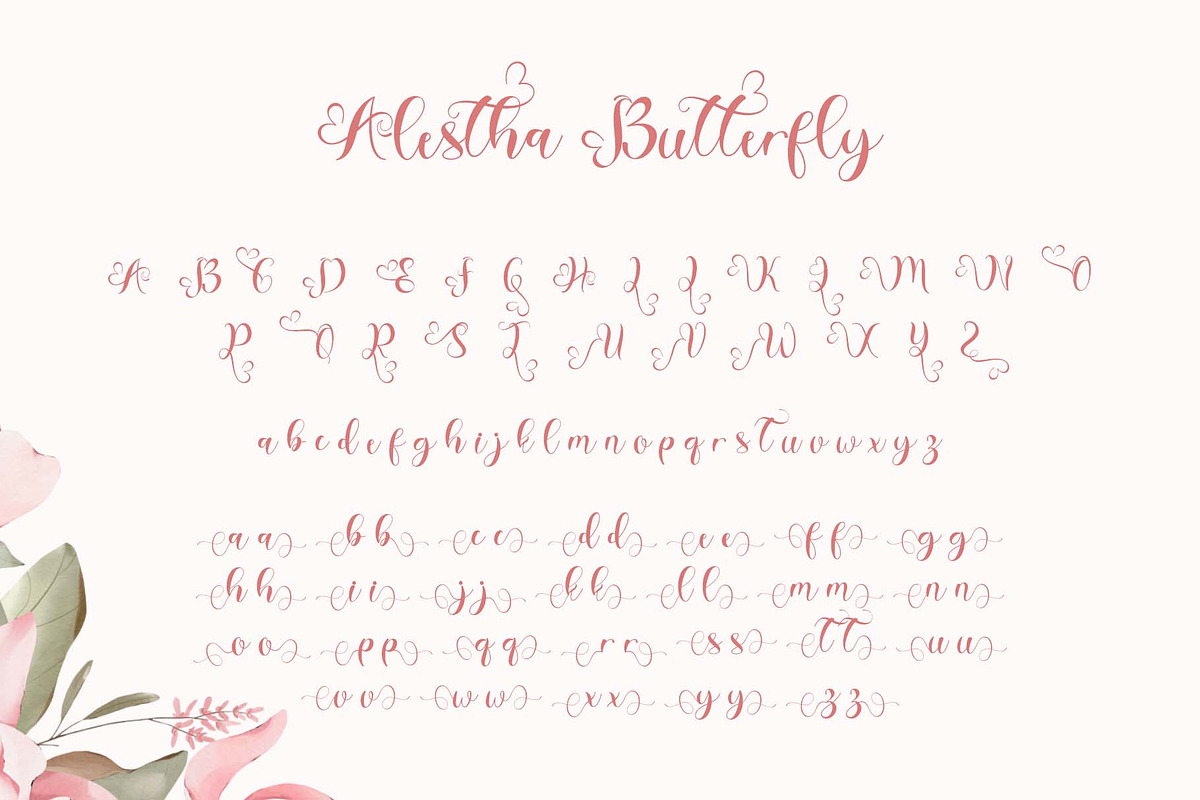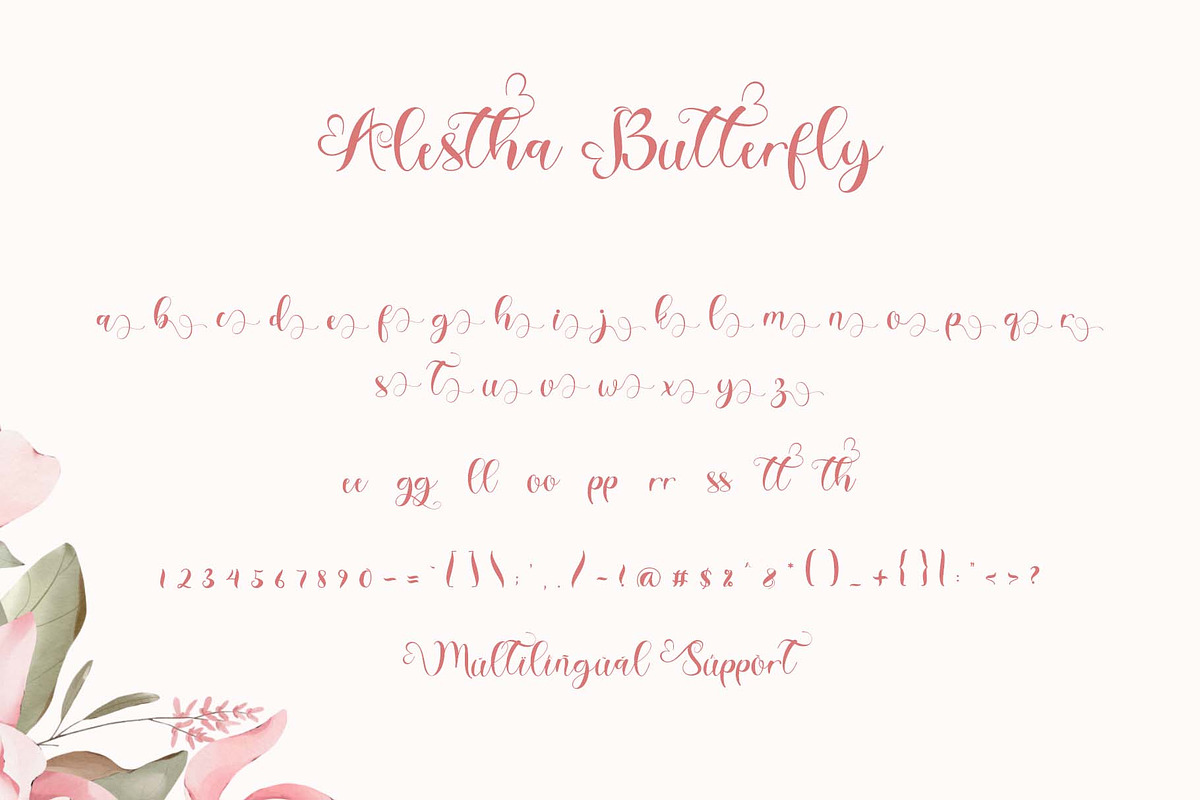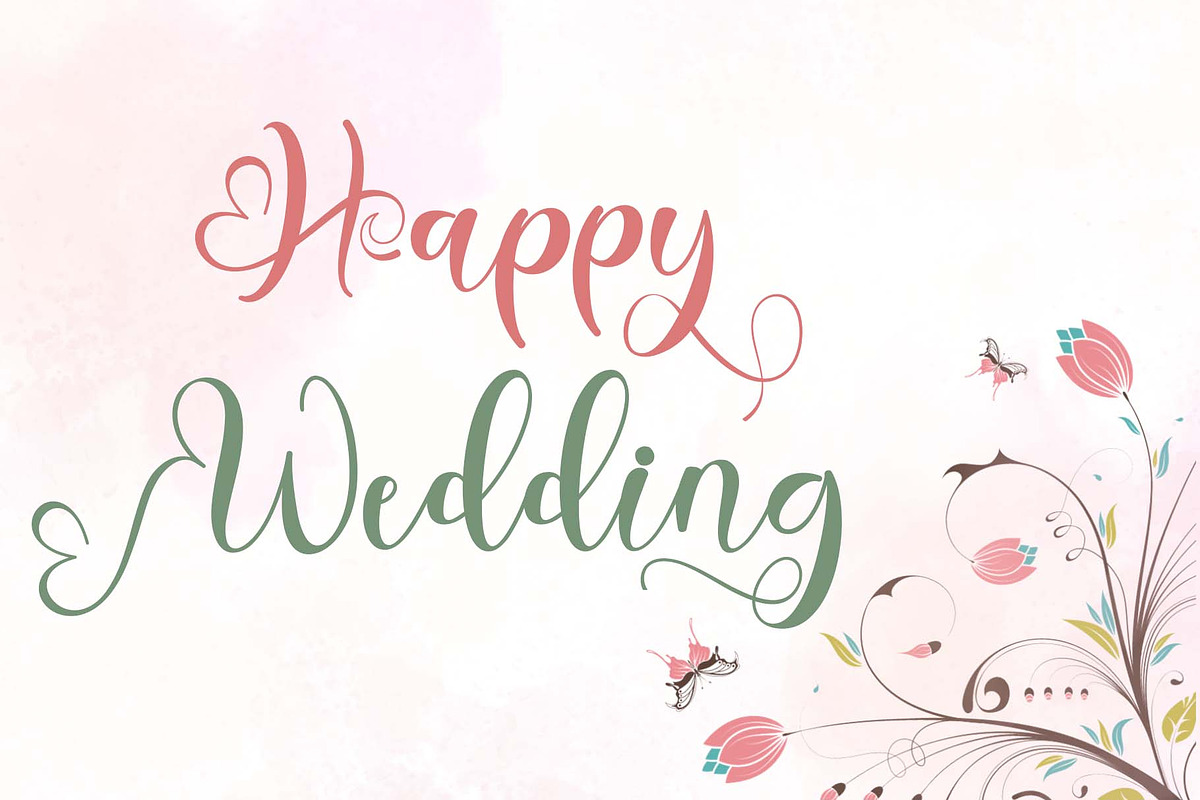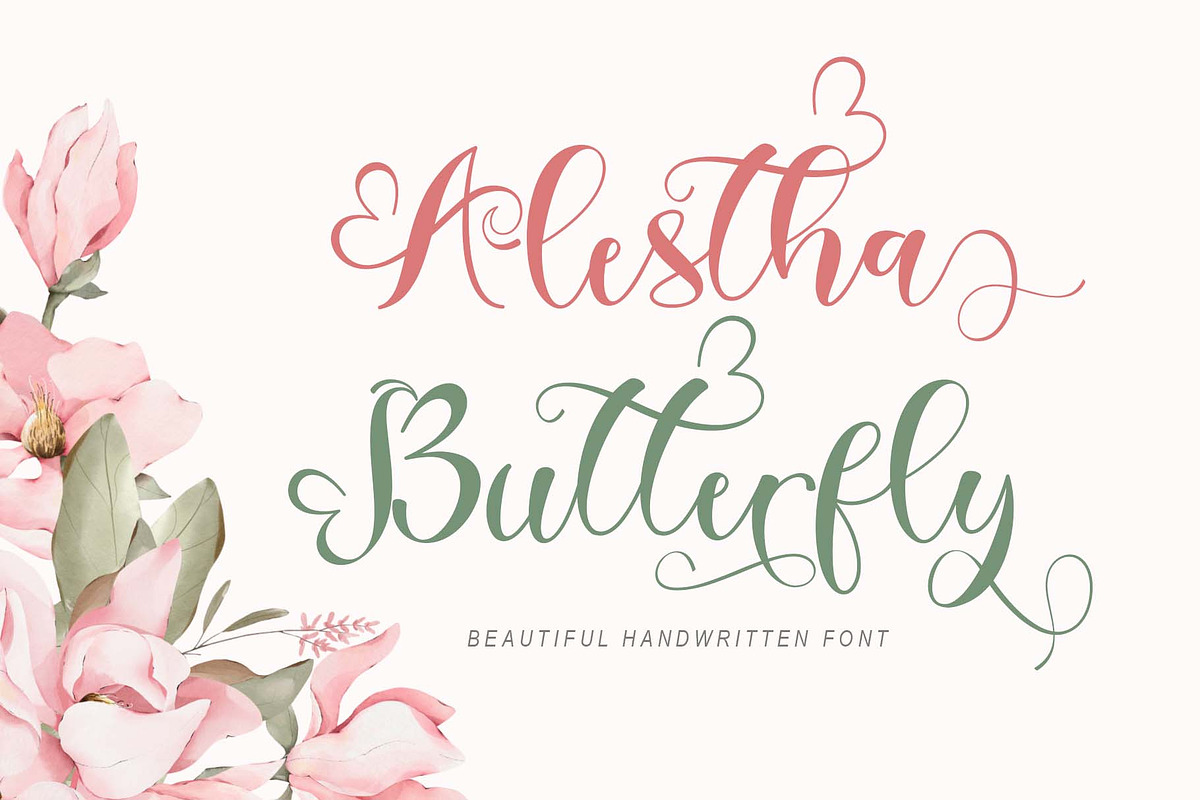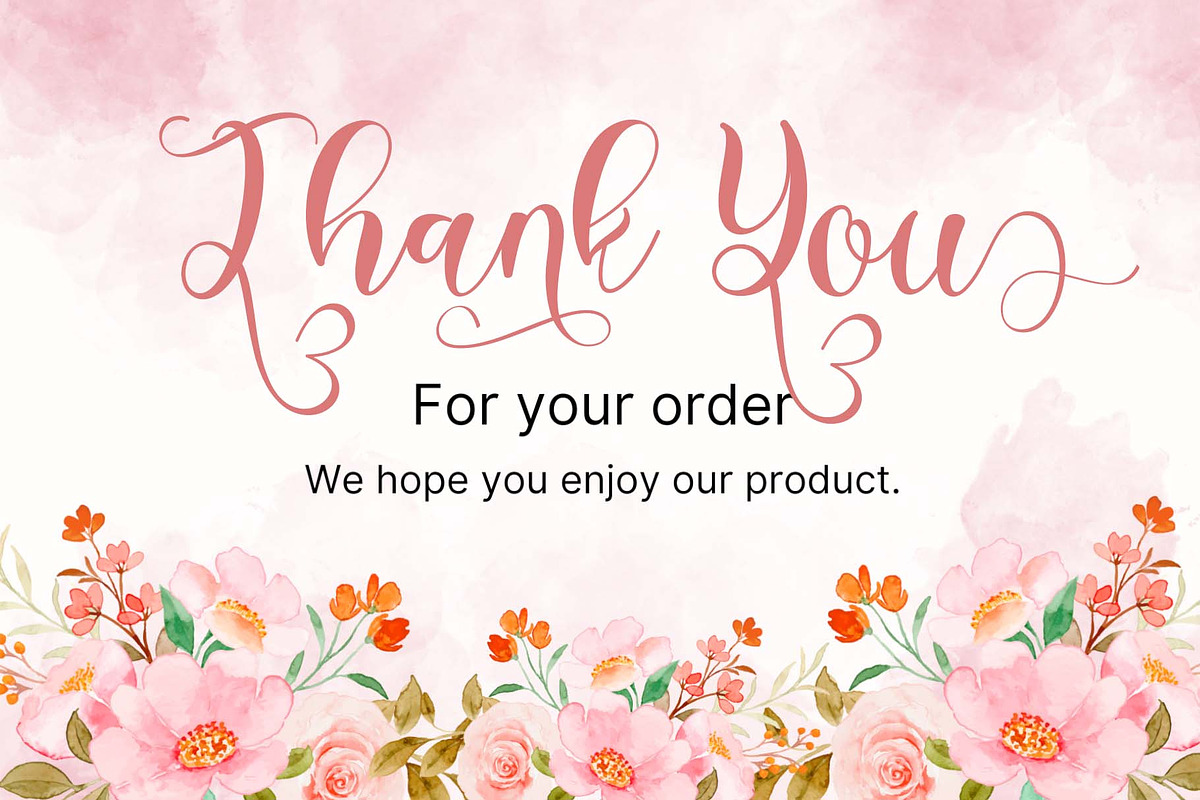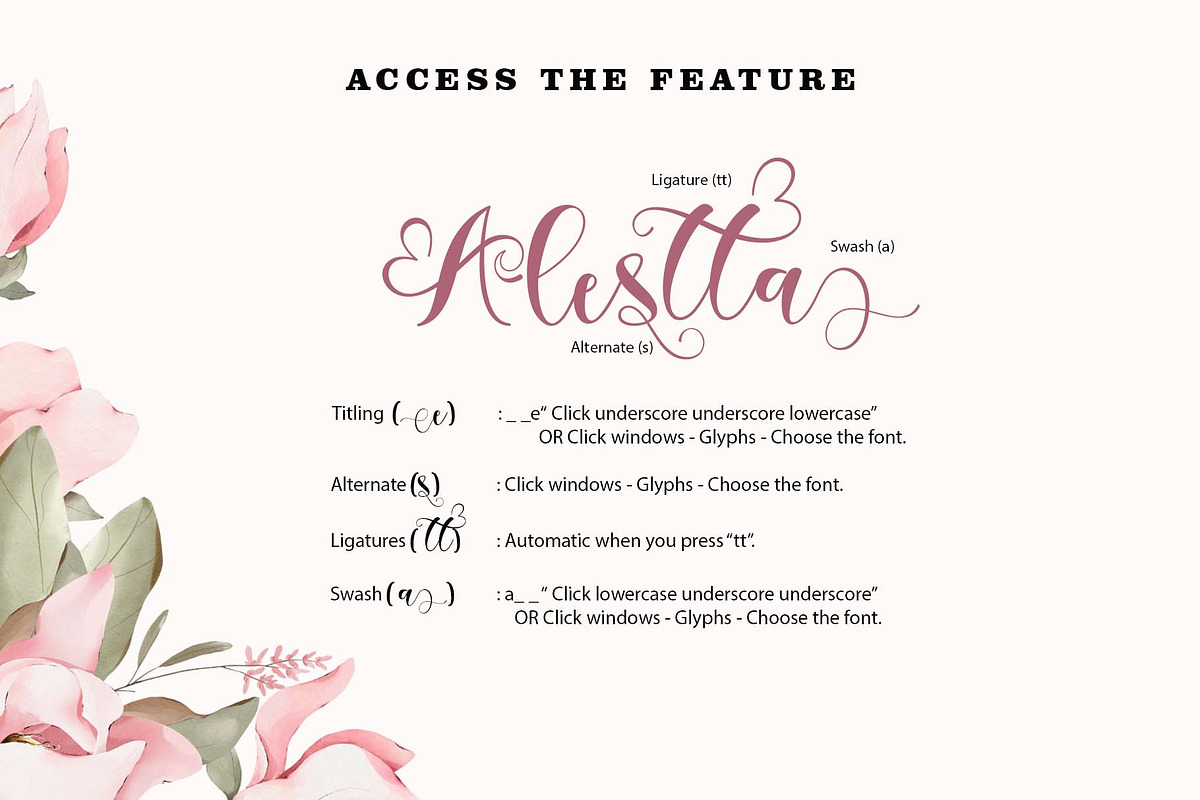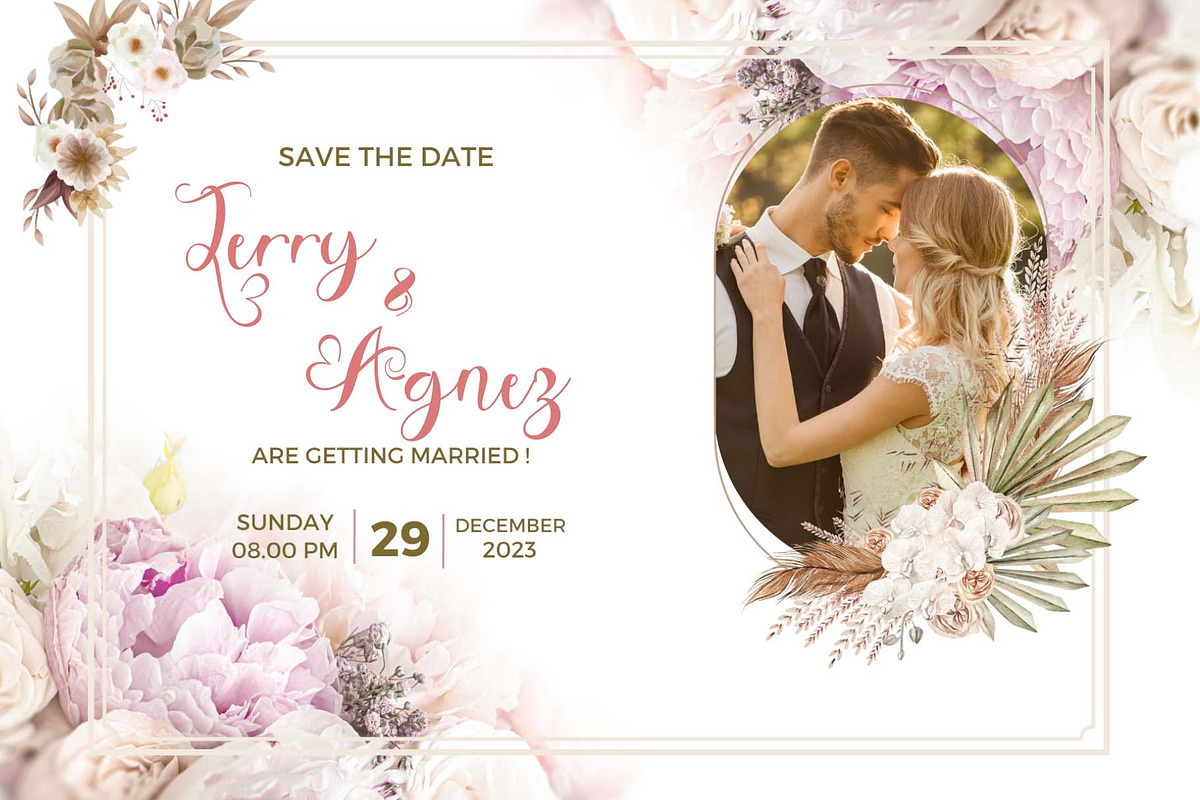
Alestha Butterfly
"Alestha Butterfly" is a beautiful handwriting font. This font is equipped with capital letters, lowercase, numerals, punctuation, numerals, multilingual support, alternates, swashes, titling, and ligatures. It is suitable for weddings, engagements, Christmas, Valentine's Day, invitations, and others.